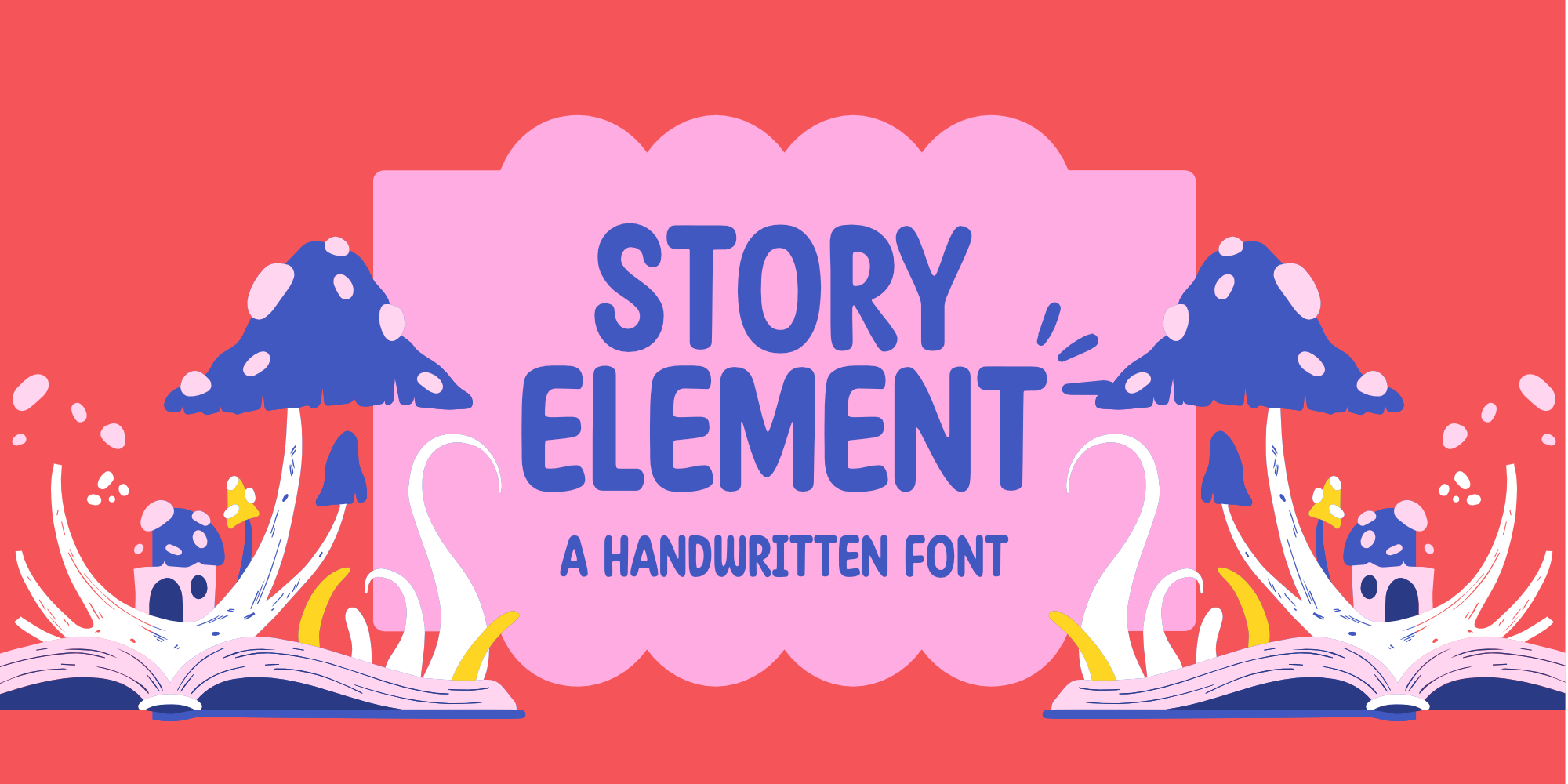
Story Element Font is perfect for storytelling workshops, narrative-driven marketing, creative writing courses, publishing house branding, documentary film titles, podcast graphics, memoir publications, digital storytelling platforms, creative agency materials, and narrative applications that celebrate the fundamental building blocks and transformative power of compelling storytelling.
What makes Story Element Font truly exciting is its masterful embodiment of narrative structure and storytelling craft that captures the essential components and creative architecture that transform simple words into powerful, memorable stories that resonate with audiences. This exceptional typeface combines literary sophistication with creative accessibility, featuring structured letterforms and narrative character that convey both storytelling expertise and imaginative possibility. The font's story-focused personality and narrative design make it perfect for writers and brands seeking to communicate creative mastery, narrative excellence, and the transformative power of well-crafted stories that connect hearts, change minds, and create lasting emotional impact.
The Story Element Font family includes multiple weights and styles: Light, Regular, Medium, Bold, and Narrative variations designed for maximum storytelling impact. Each family member maintains the distinctive literary character while offering flexibility for diverse narrative applications and storytelling branding systems. The comprehensive character set supports creative typography needs and narrative design elements, making it suitable for international storytelling communications.
When you choose Story Element Font Free Download, you're selecting a typography narrator that delivers authentic storytelling credibility and narrative excellence to every creative project. This literary typeface excels in applications where storytelling craft and narrative power are fundamental, delivering exceptional creative appeal while maintaining literary authenticity. Whether you're designing publishing brands, storytelling campaigns, creative materials, or narrative marketing content, this font provides the storytelling sophistication and narrative mastery that resonates with writers and audiences who appreciate compelling stories, creative excellence, and the profound human need for meaningful narratives that illuminate experience and inspire transformation.